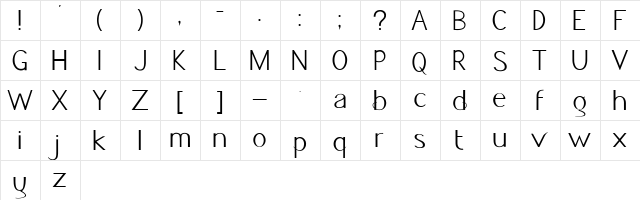
Jacks Font Regular
| Foundry | Jack Edwards |
Design Context for Jacks Font Typeface
Jacks Font is a composed and adaptable typeface that performs quietly and consistently across a wide range of design contexts.